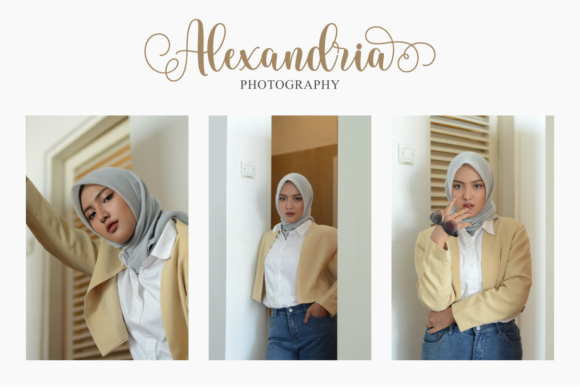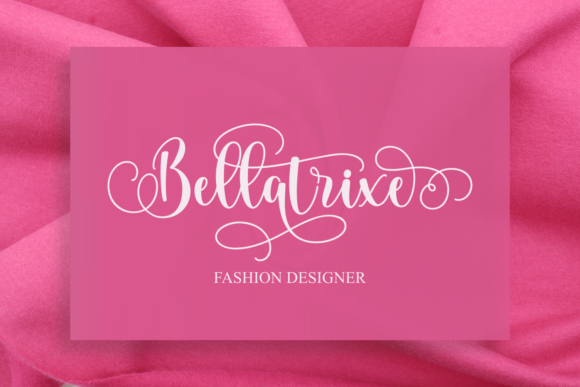
Hungrily Font
db-ku.com - Script & Handwritten -- Hungrily is sweet handwritten font. It maintains its classy calligraphic influences while feeling contemporary and fresh. Fall in love with it and bring your projects to the highest levels!